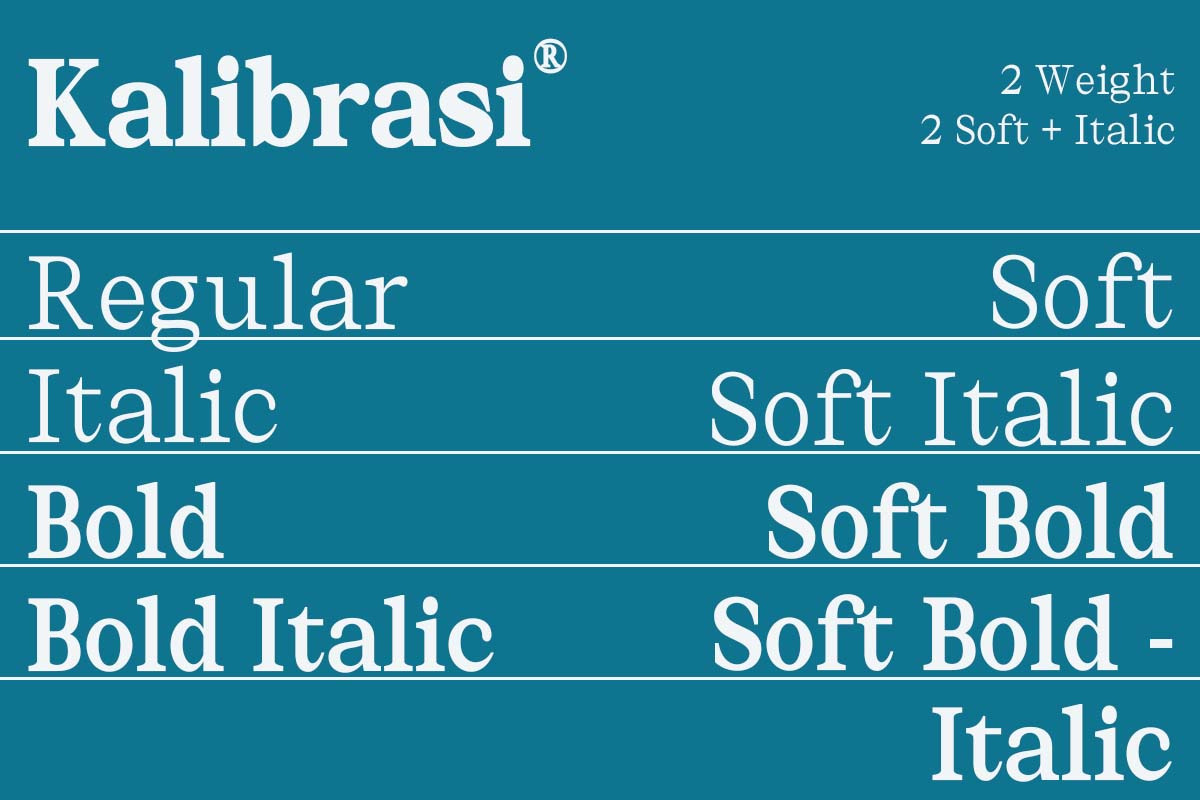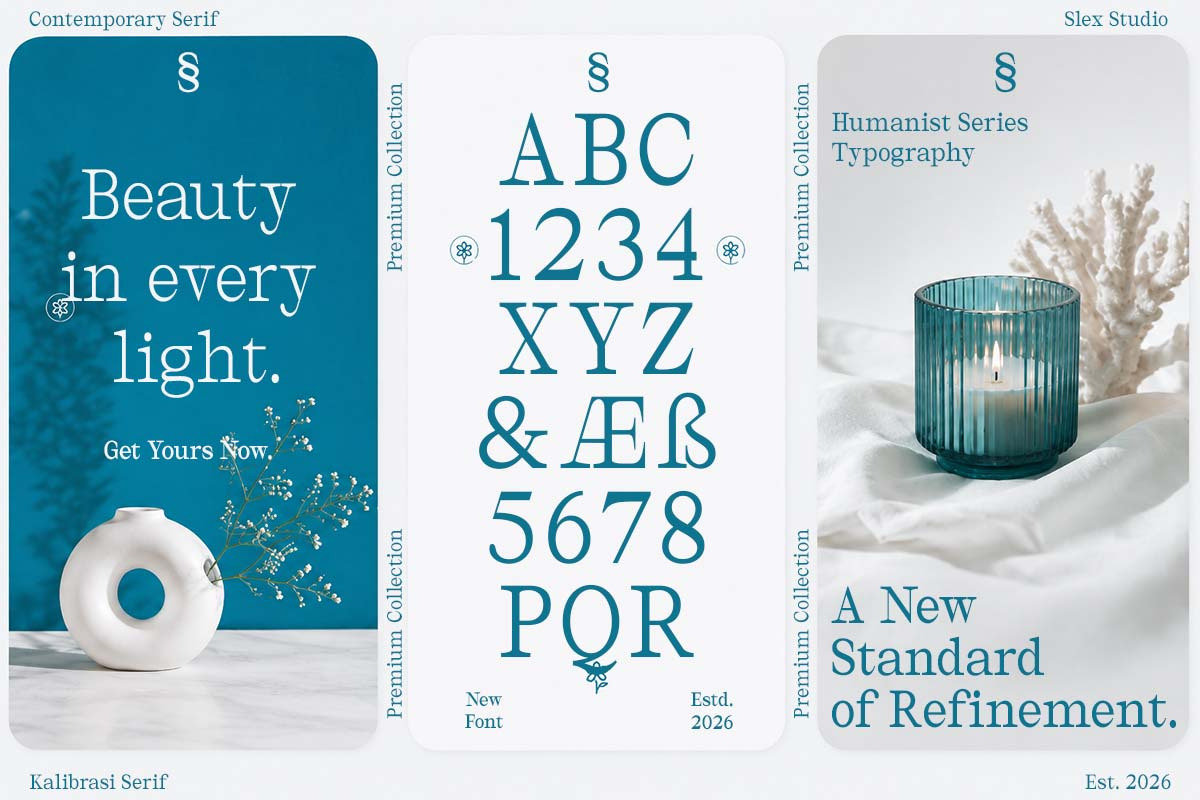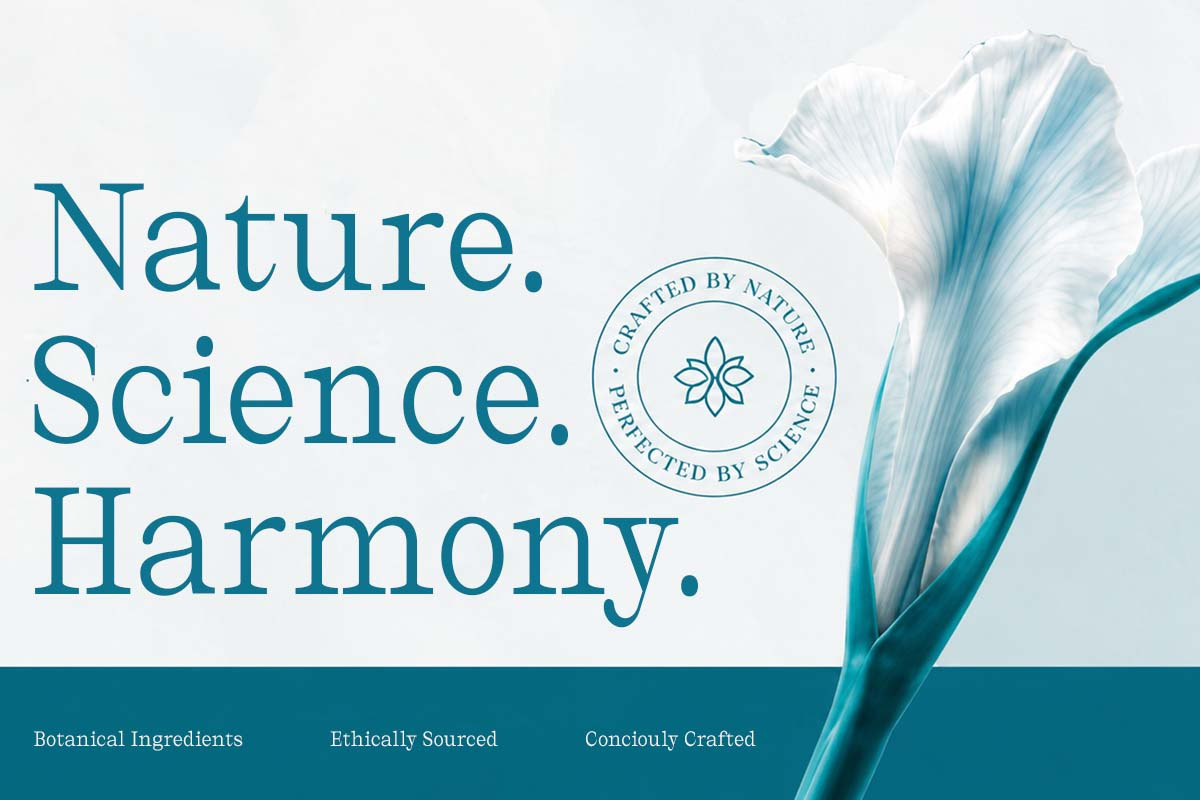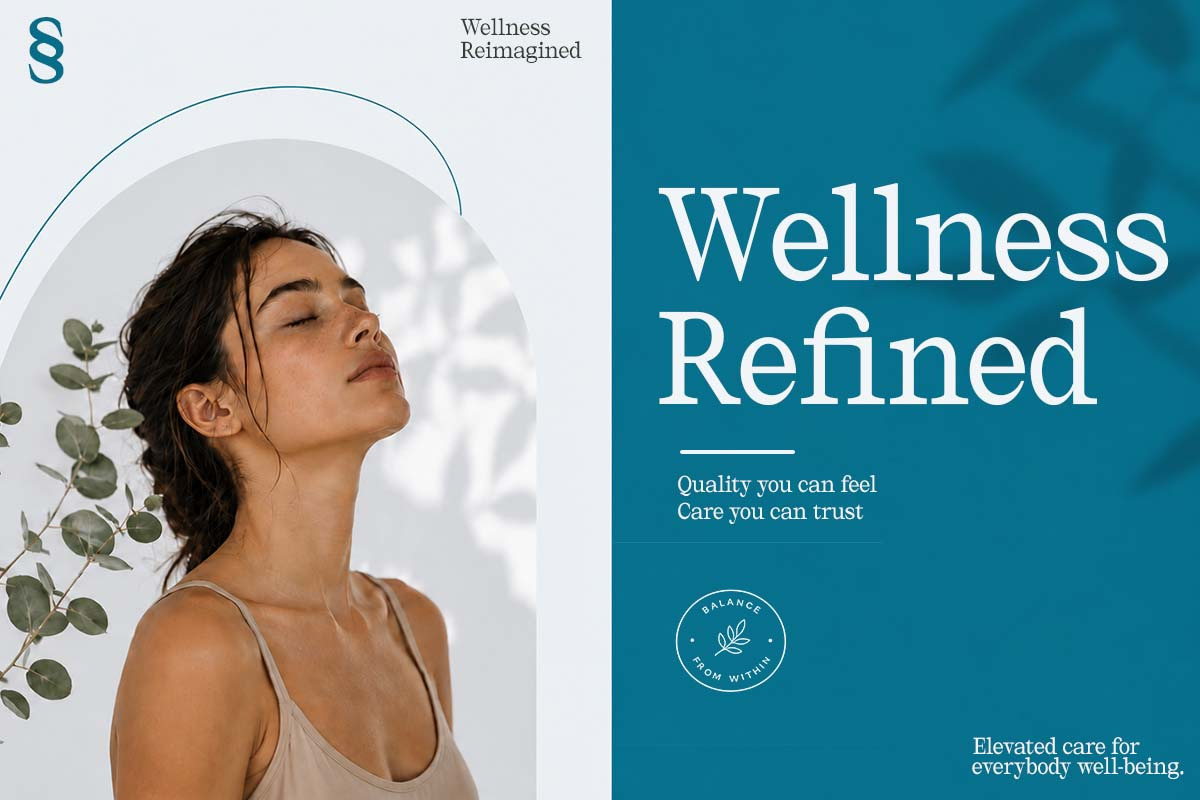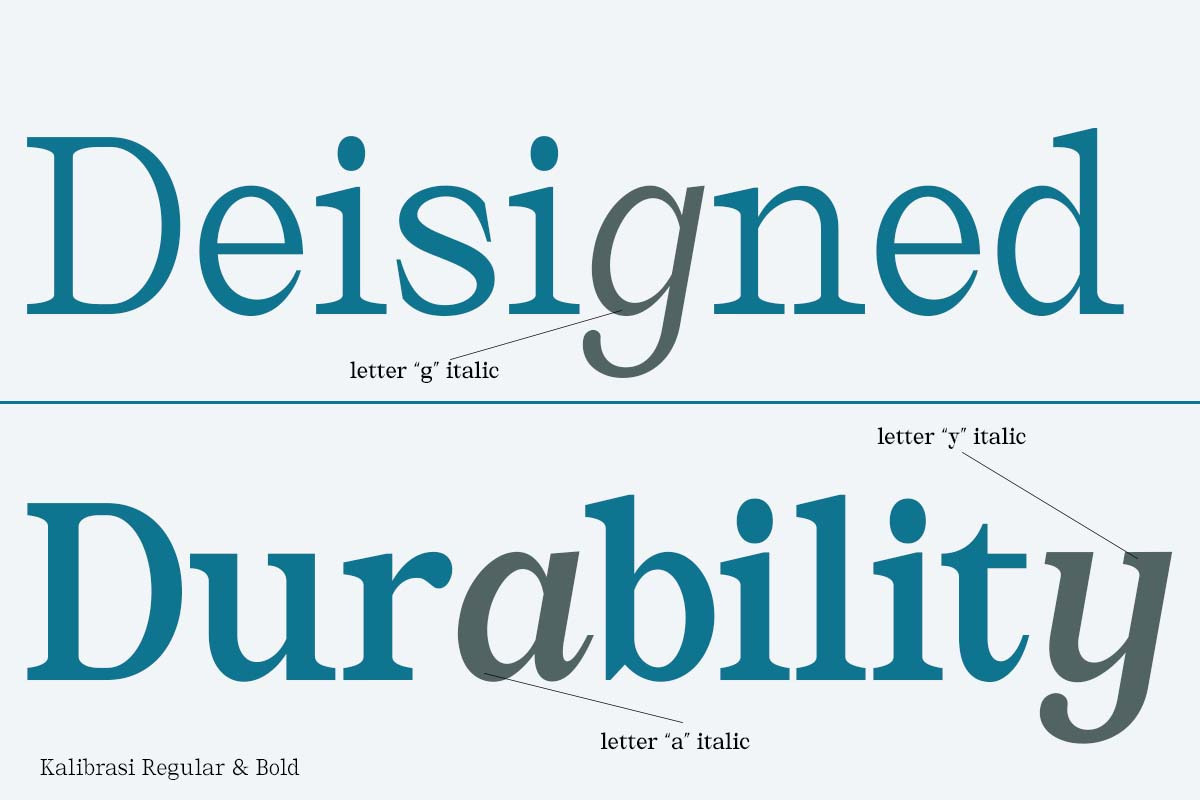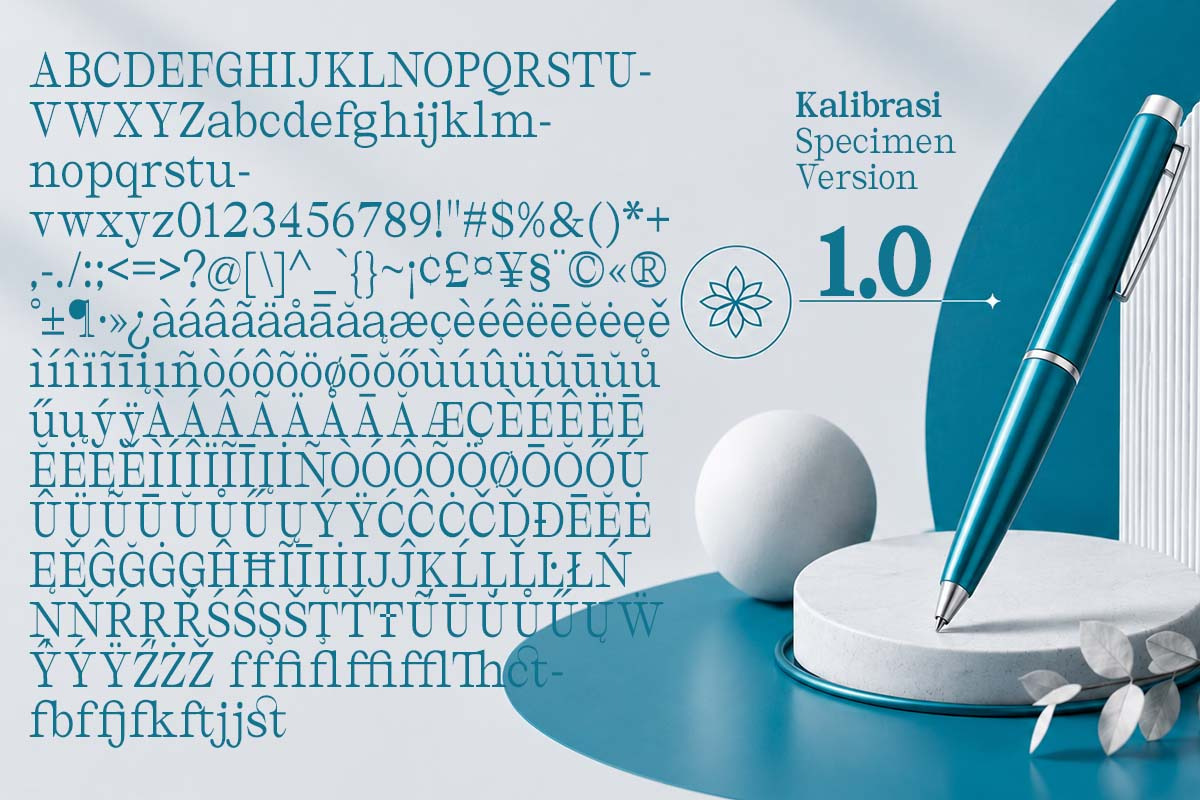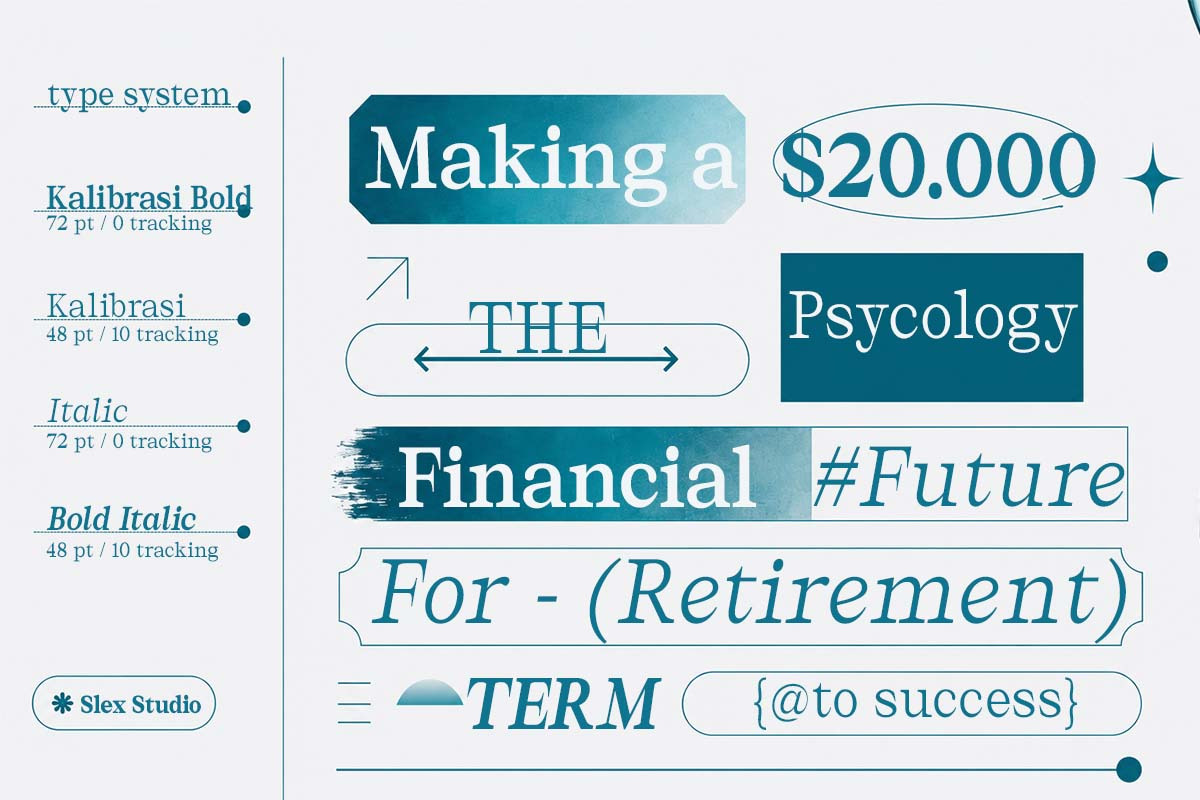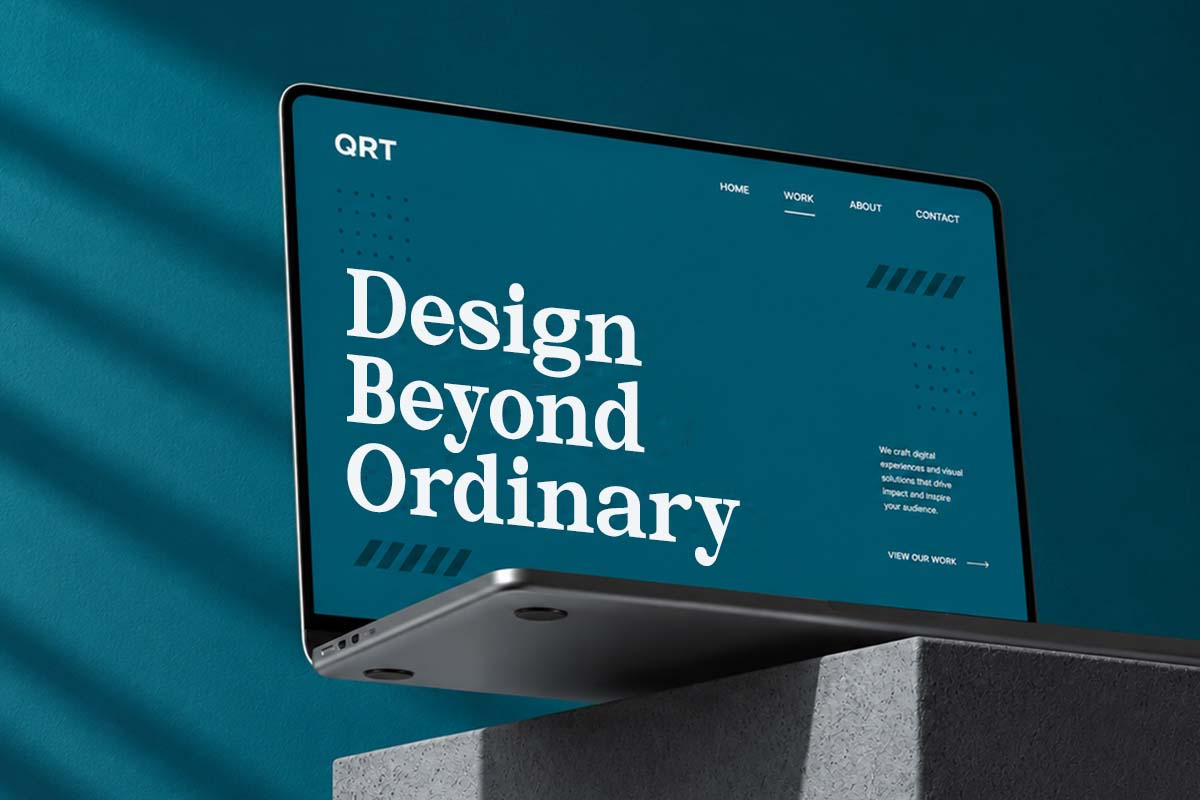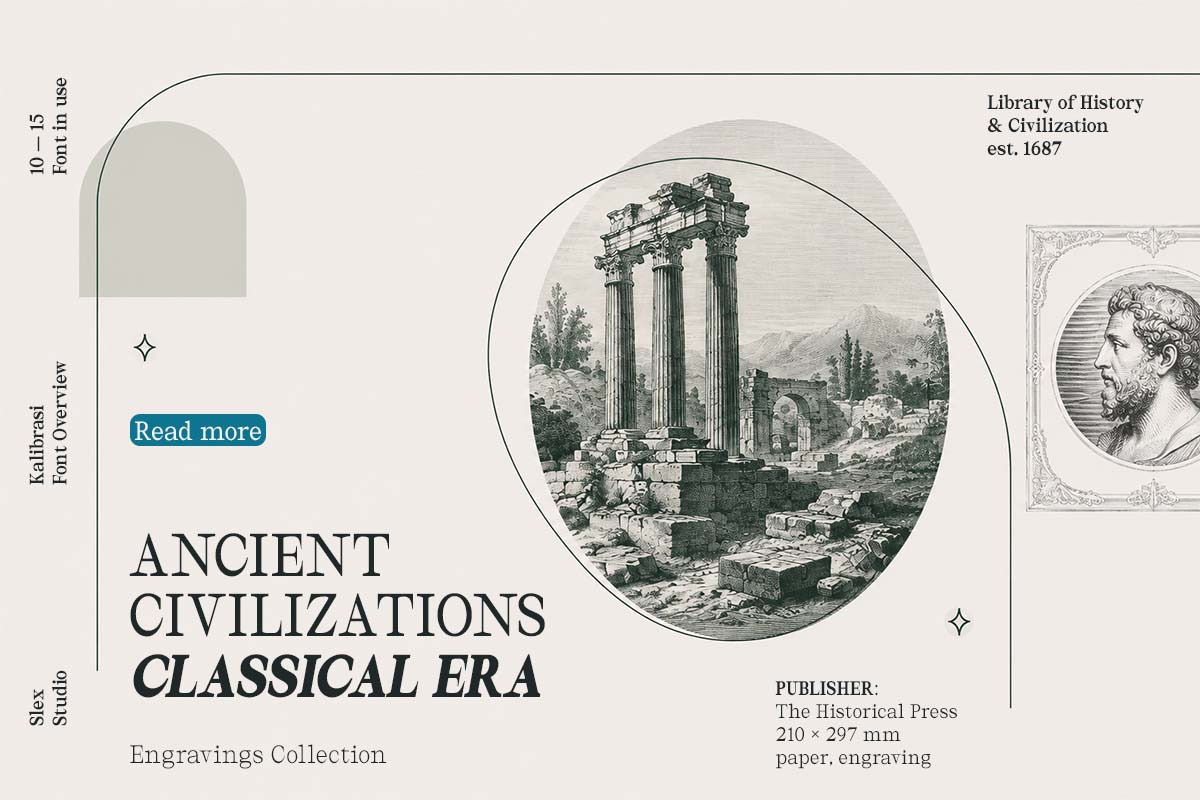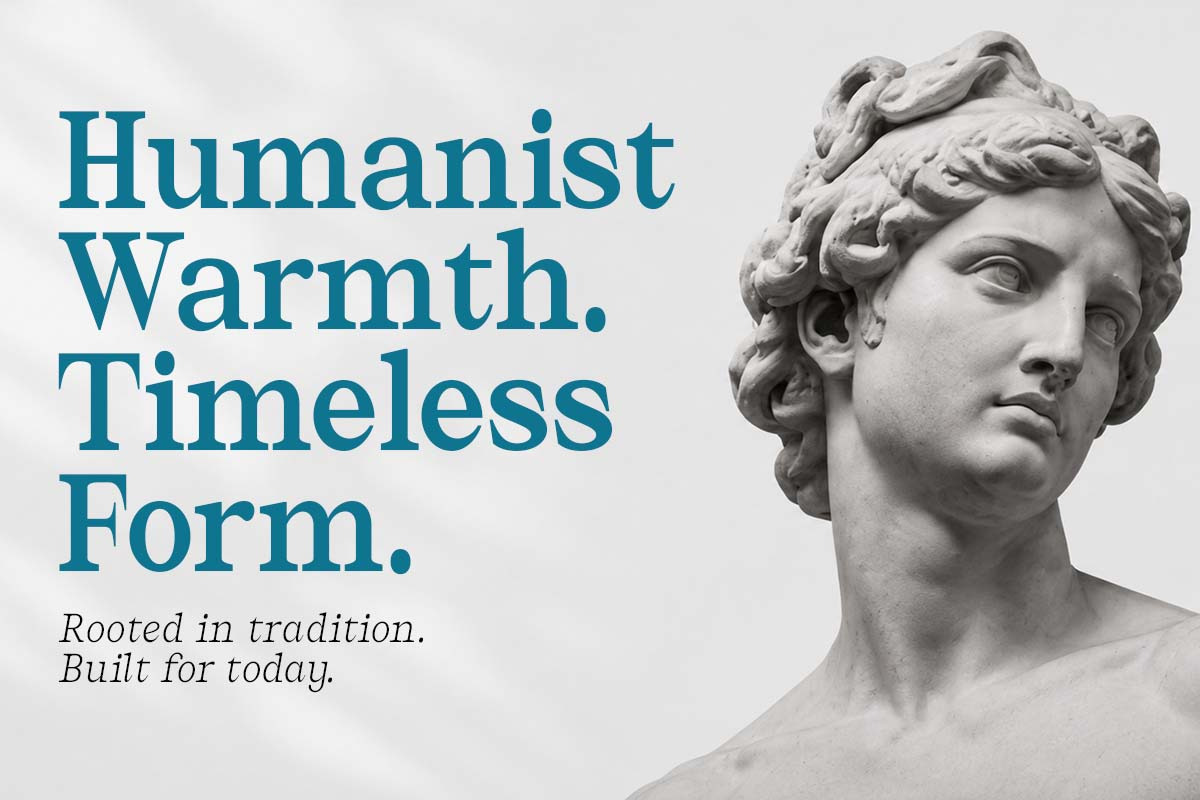
Kalibrasi
Kalibrasi is a contemporary variable serif designed to bring clarity, confidence, and sophistication to modern typography. Every curve, serif, and proportion has been carefully refined to create a harmonious reading experience while maintaining a strong visual presence. Equipped with 9 weights, 9 widths, and advanced OpenType features, Kalibrasi empowers designers to build expressive identities, compelling editorials, and timeless visual systems without compromise.